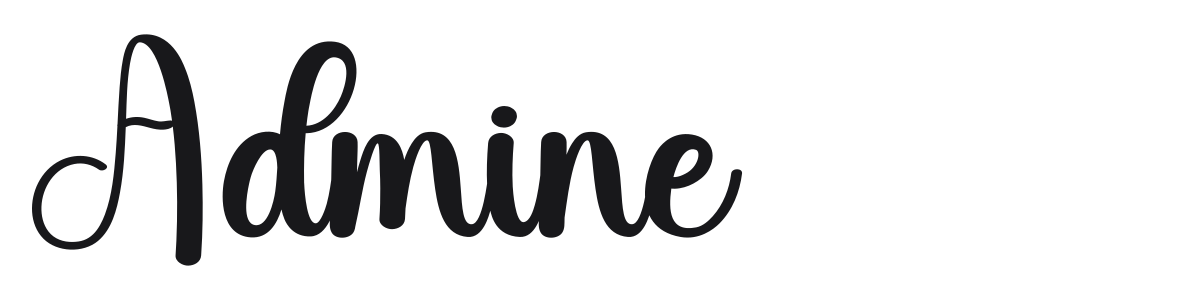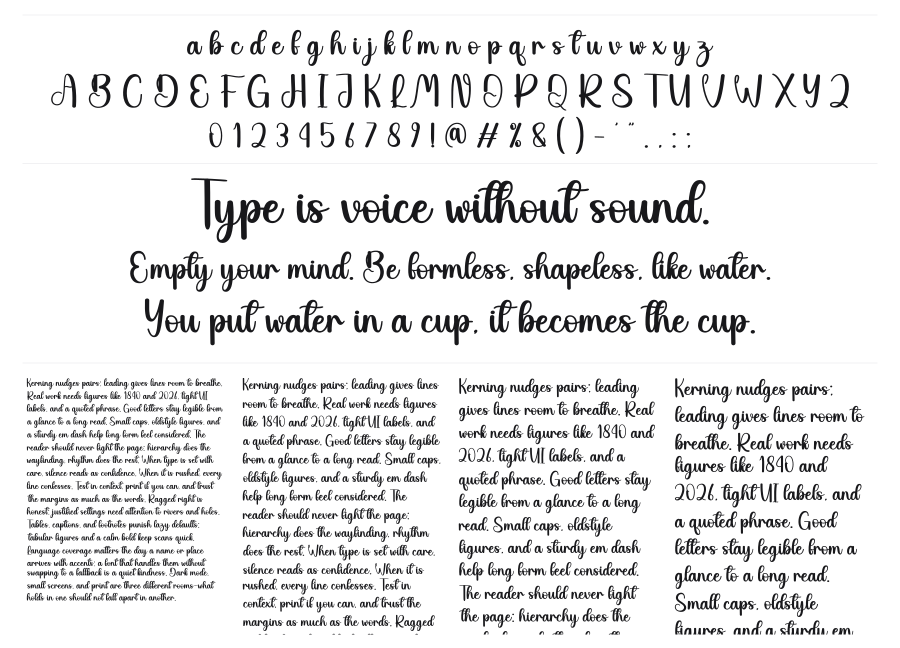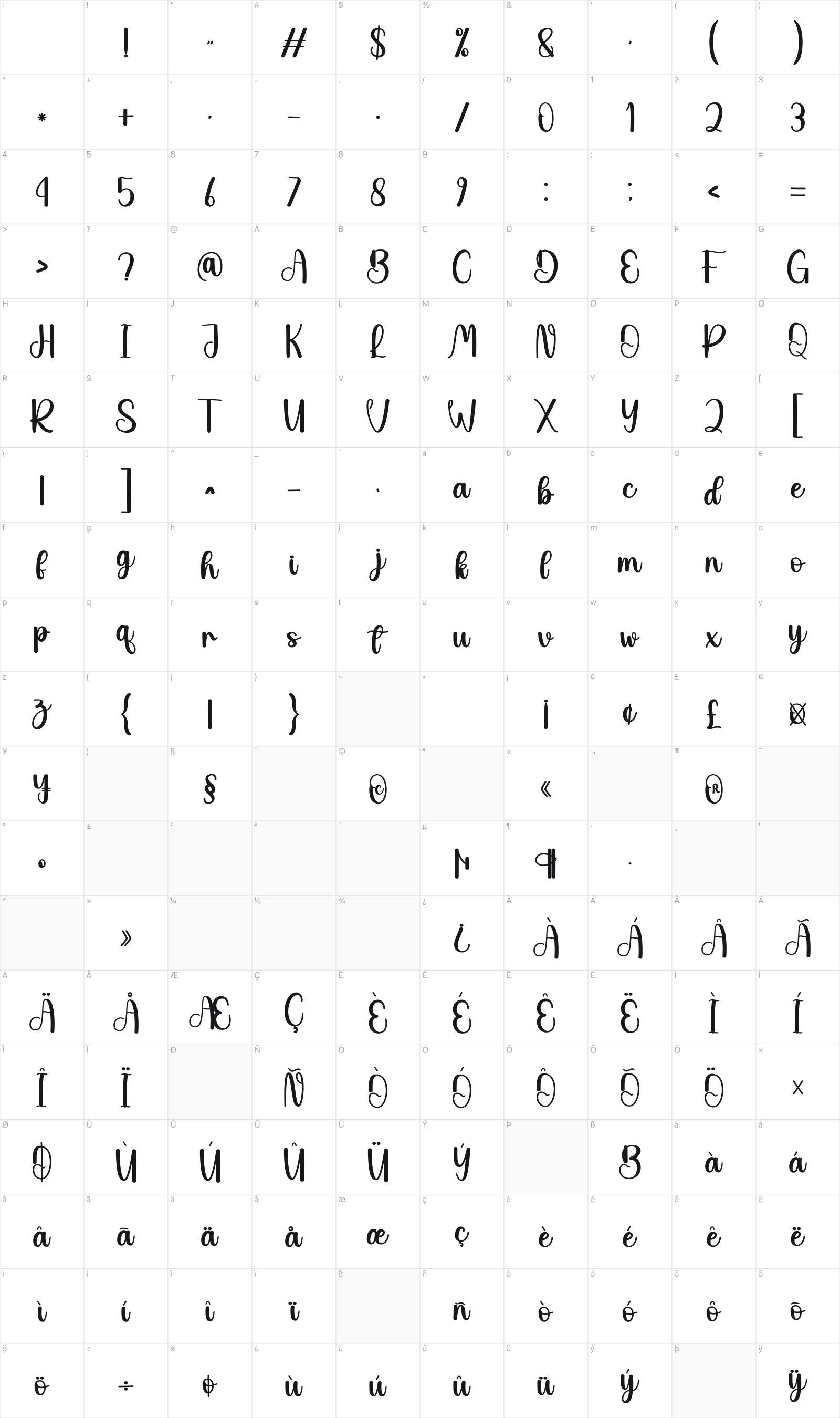
Admine
Admine is a bold, connected casual script with plump rounded strokes and a bouncy, handwritten rhythm. Its generous loops and thick stems give it an unmistakably cheerful warmth, landing somewhere between a brush pen and a hand-lettered greeting card. It works naturally for wedding stationery, packaging, and any project that needs a friendly, upbeat personality.